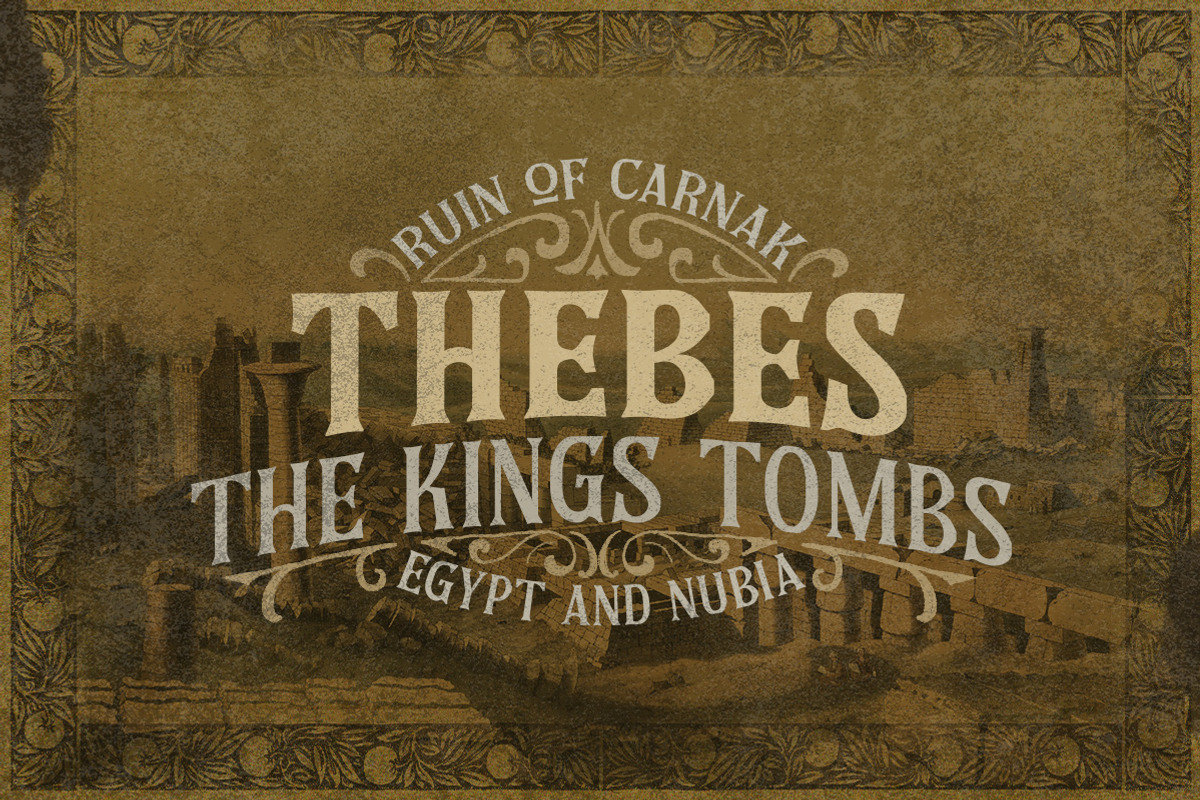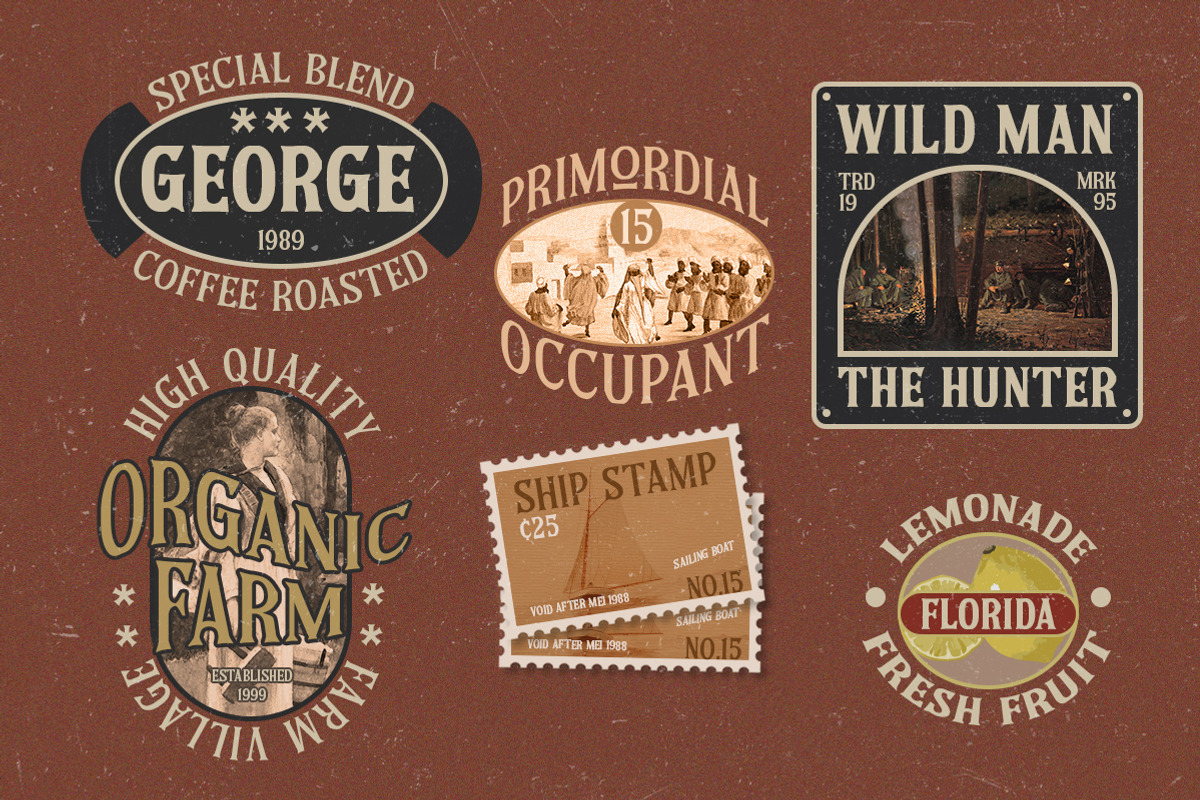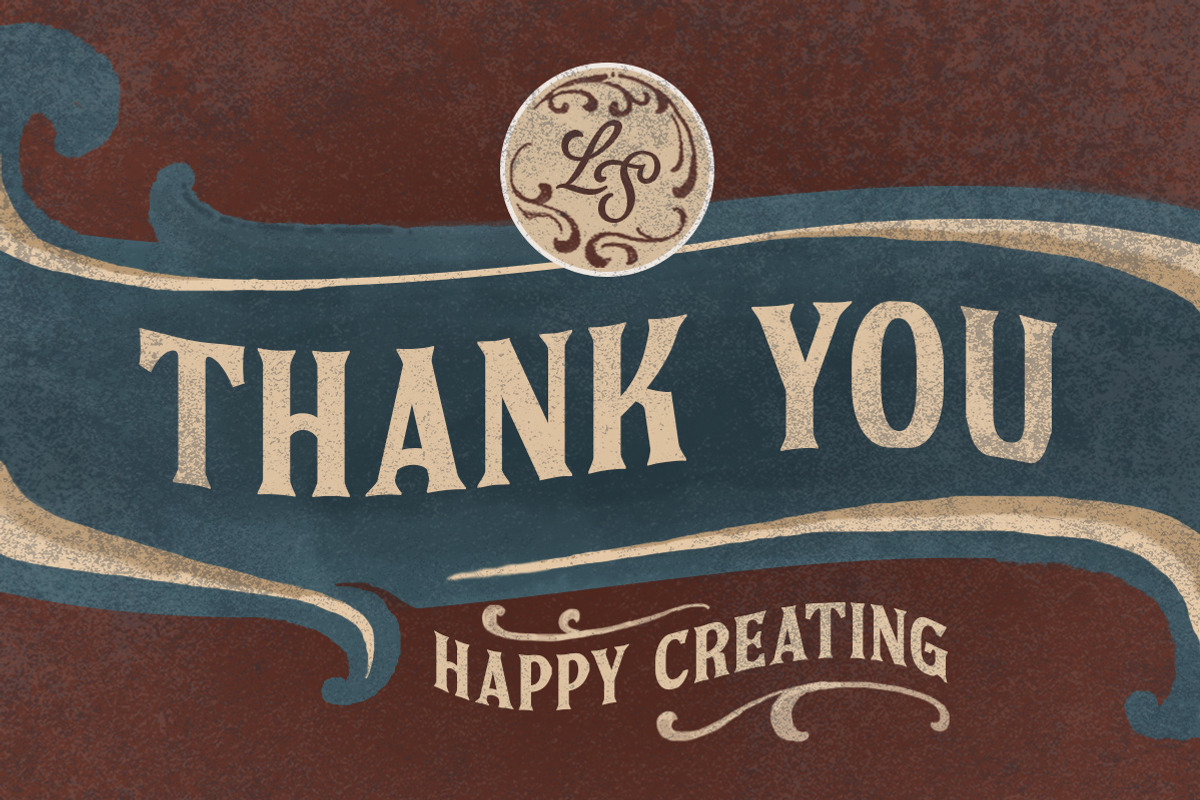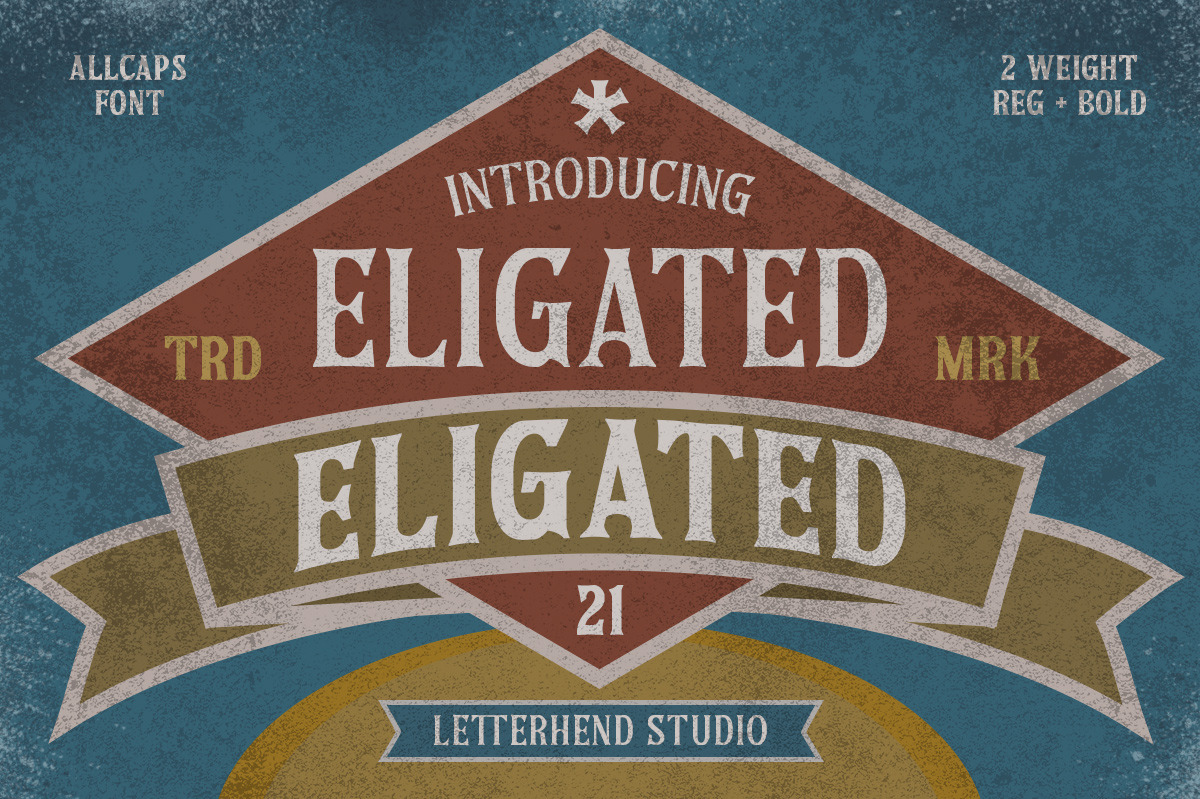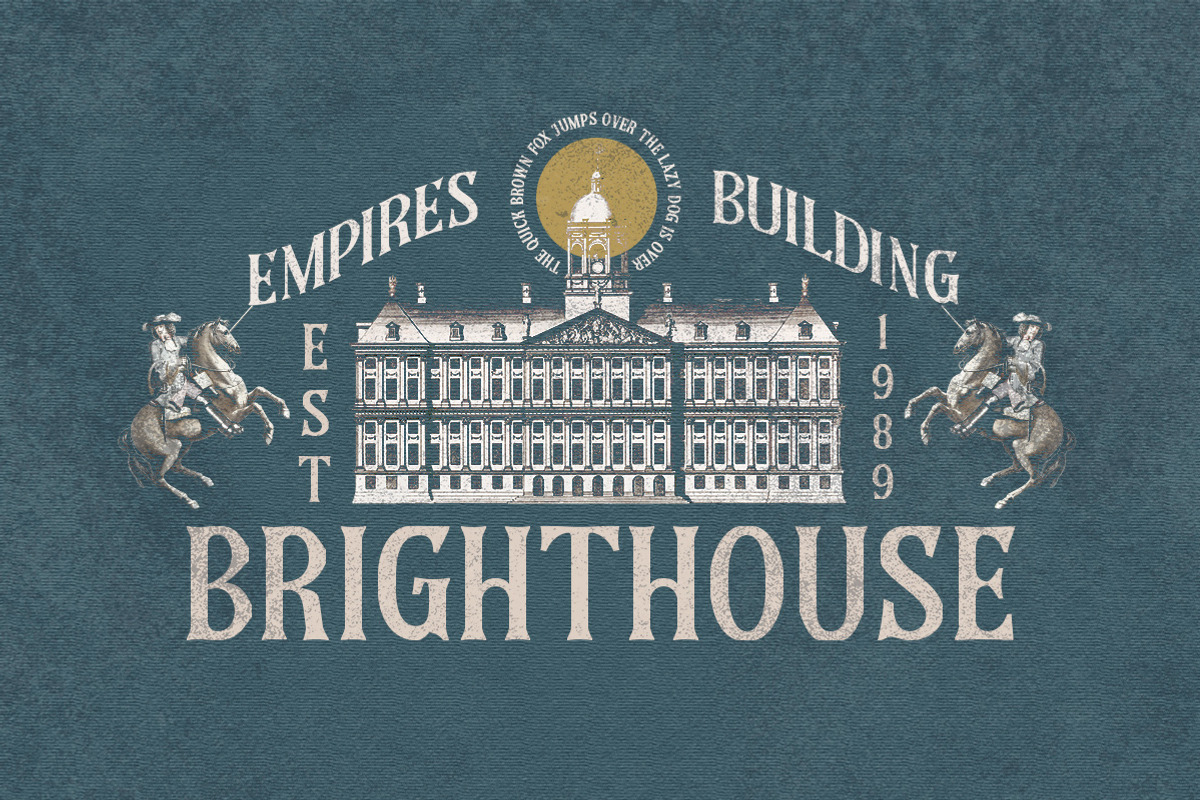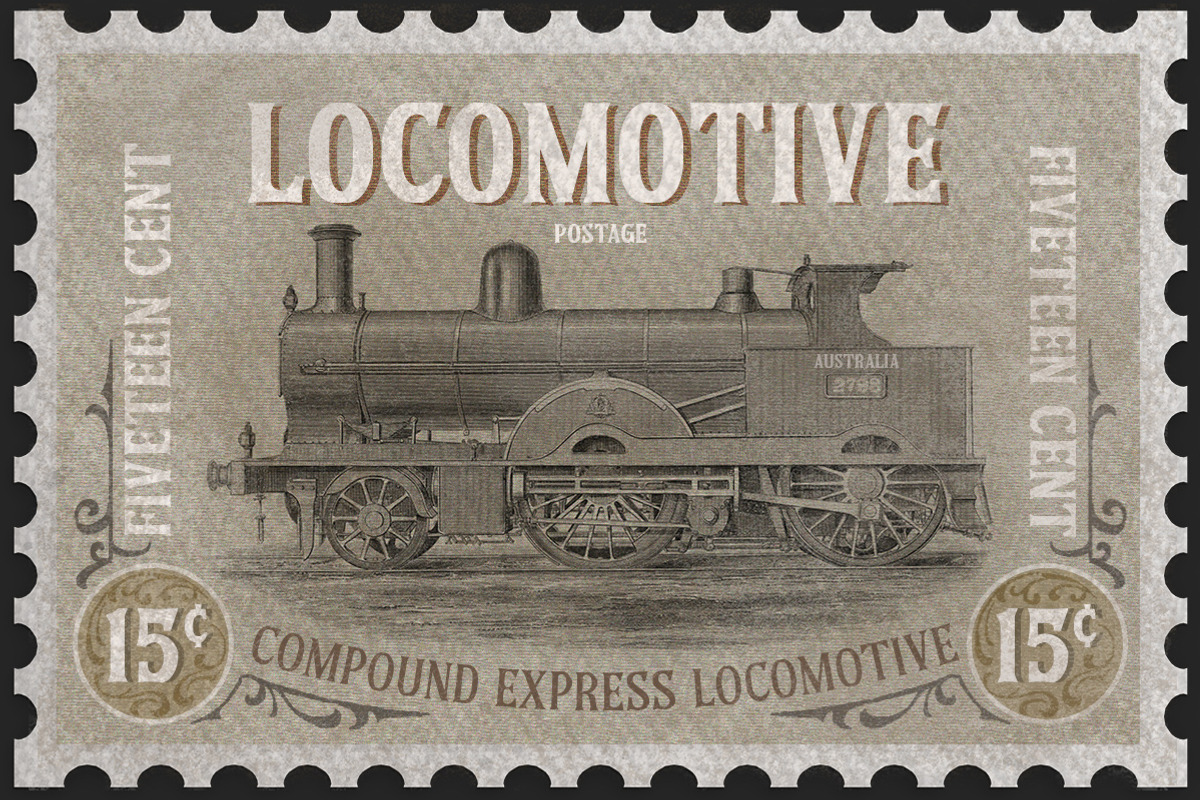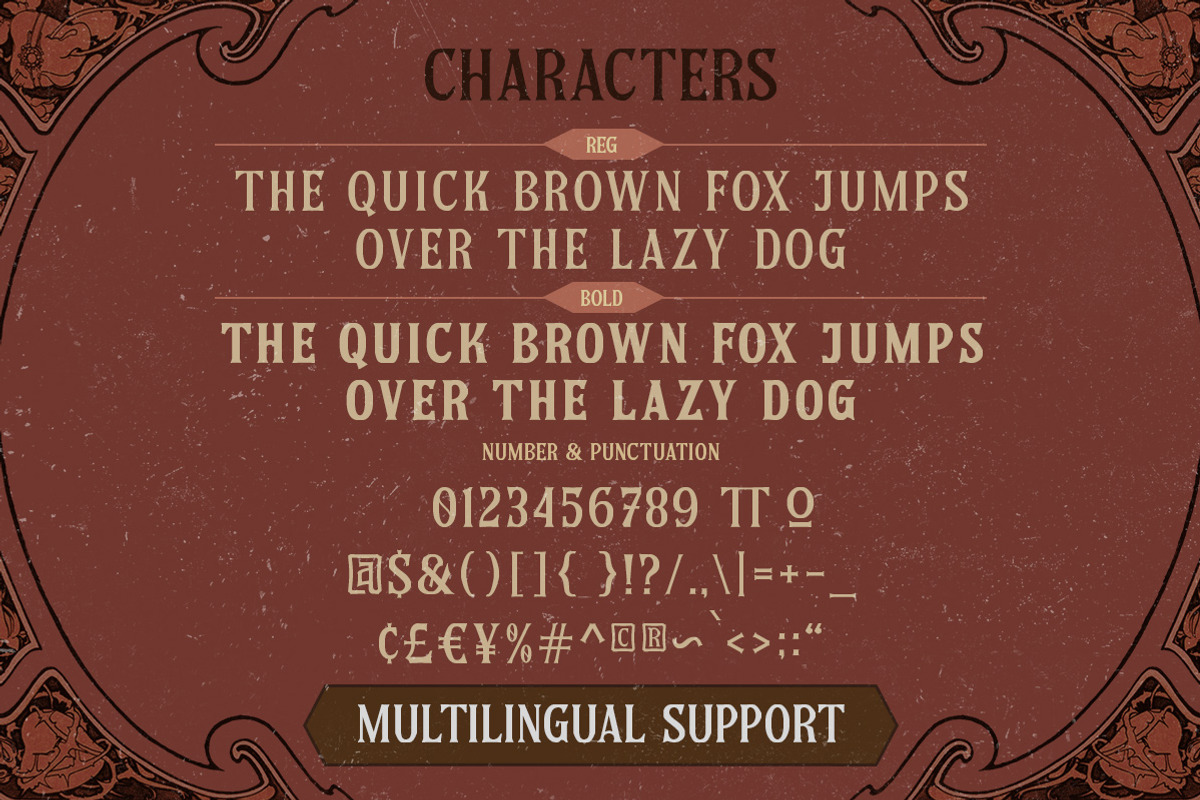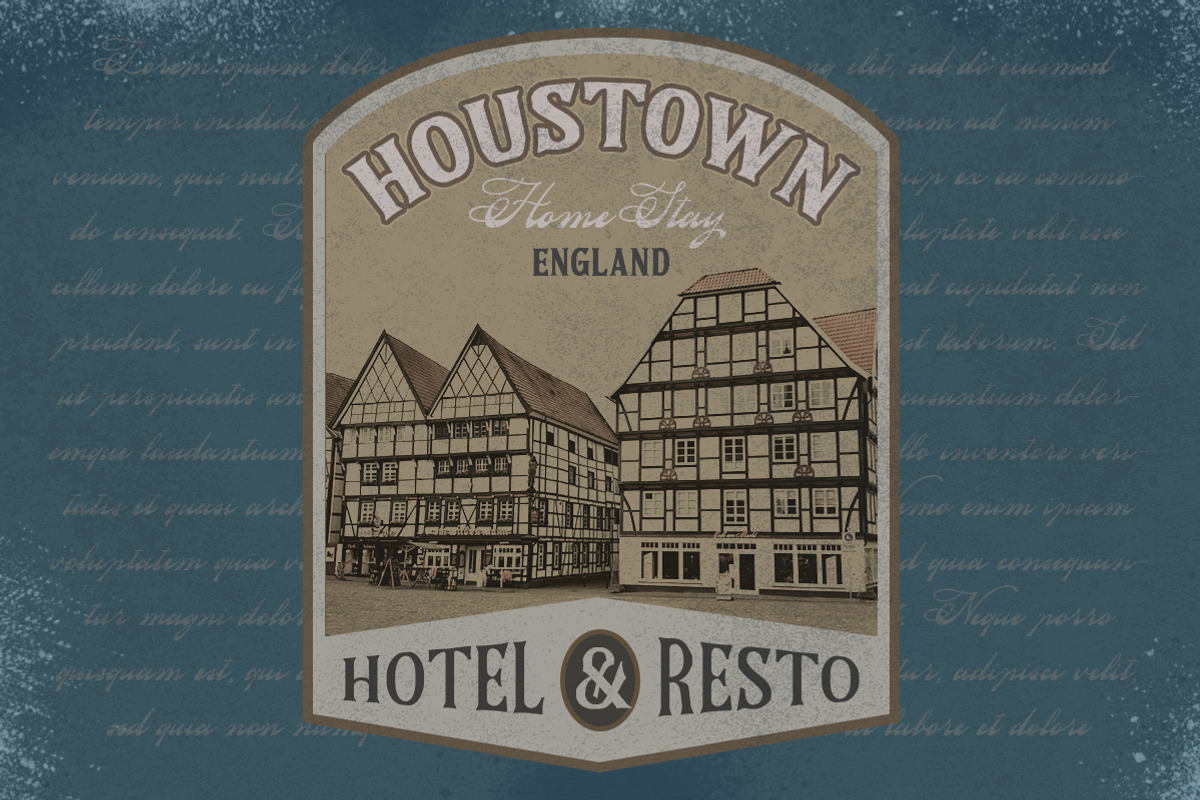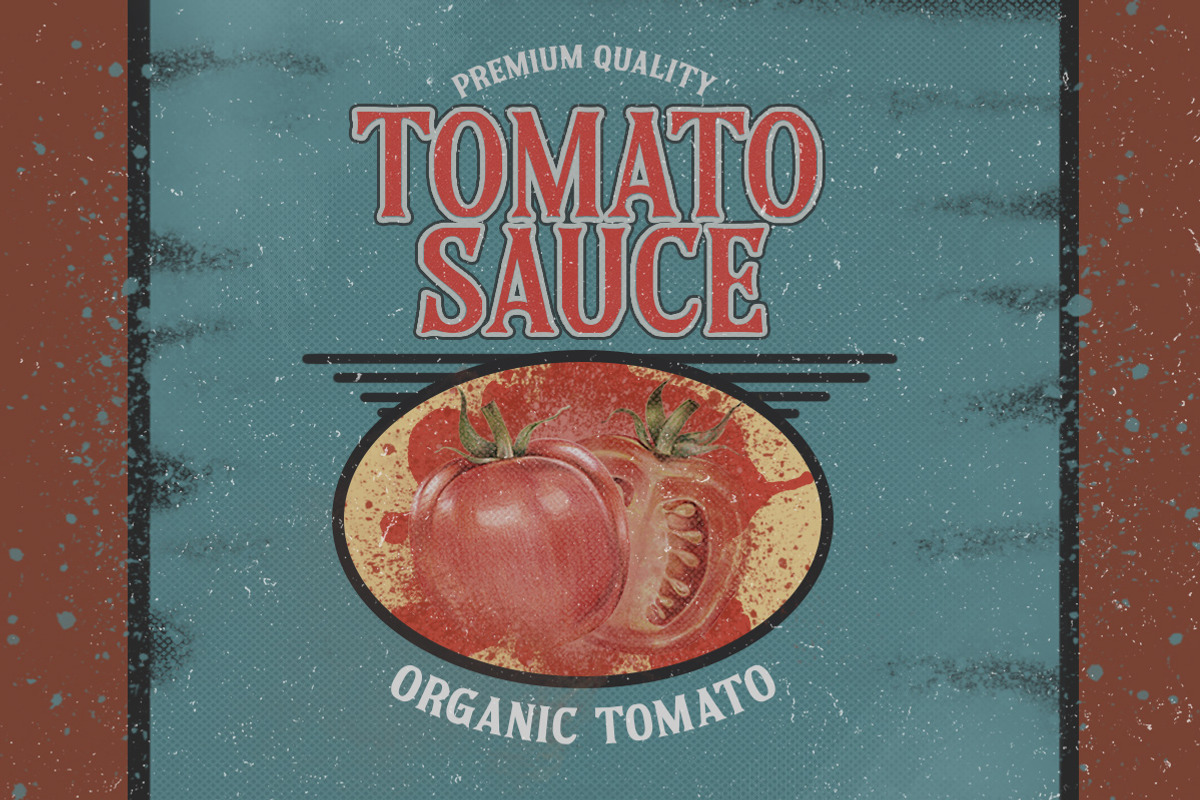
Eligated - Serif Display Font
Introducing, Eligated - a display serif typeface with nostalgic look and feel. Inspired from 60s and 70s signages, labels, and ads. This type of font perfectly made to be applied especially in logo, headline, signage and the other various formal forms such as invitations, labels, logos, magazines, books, greeting / wedding cards, packaging, fashion, make up, stationery, novels, labels or any type of advertising purpose.
- regular & bold version